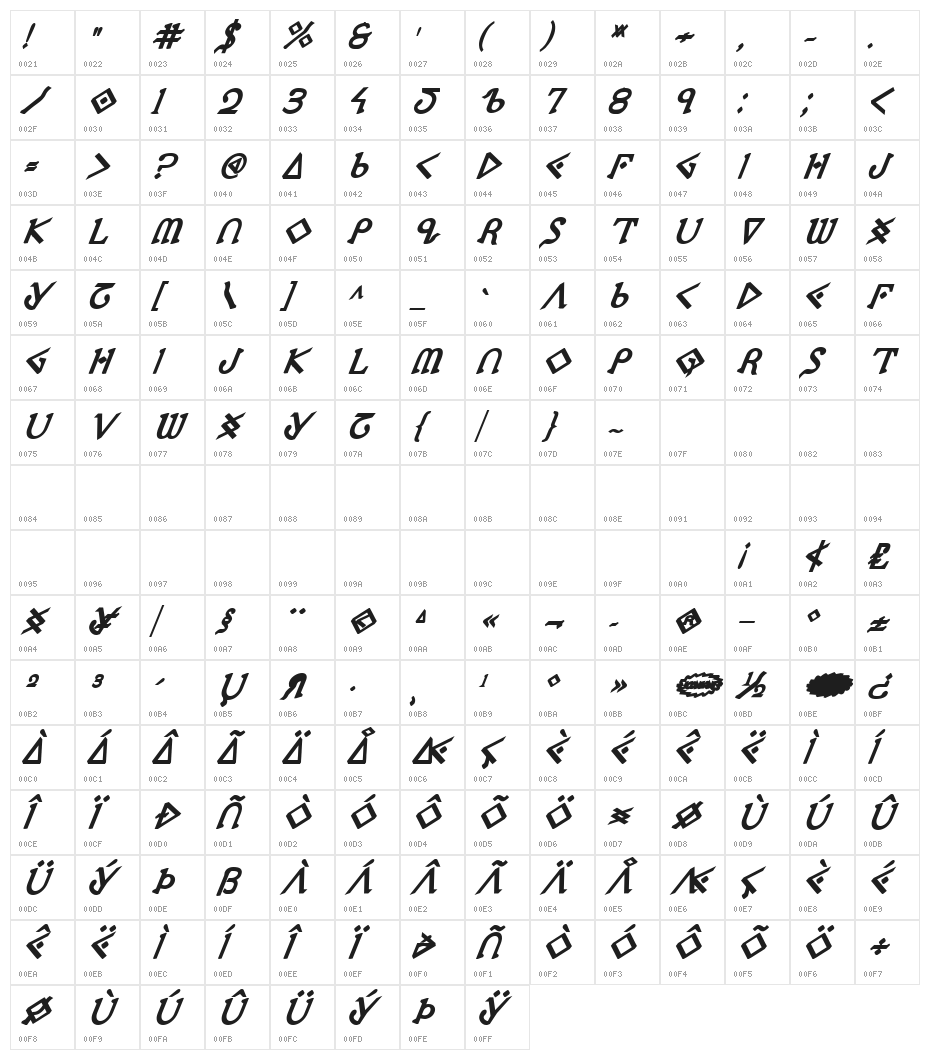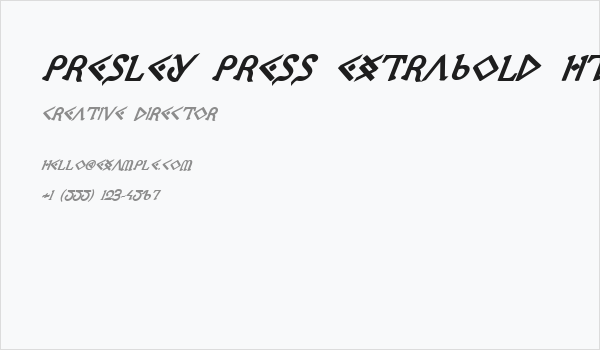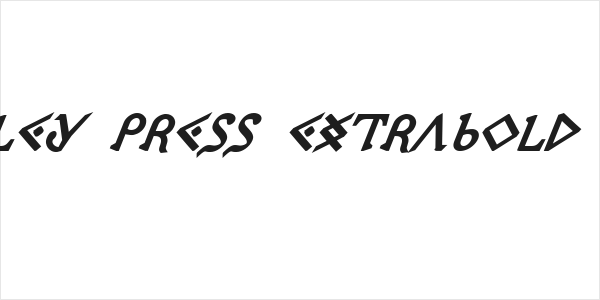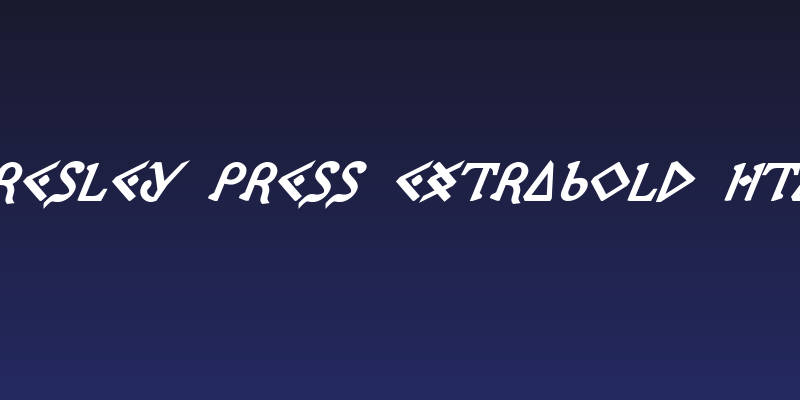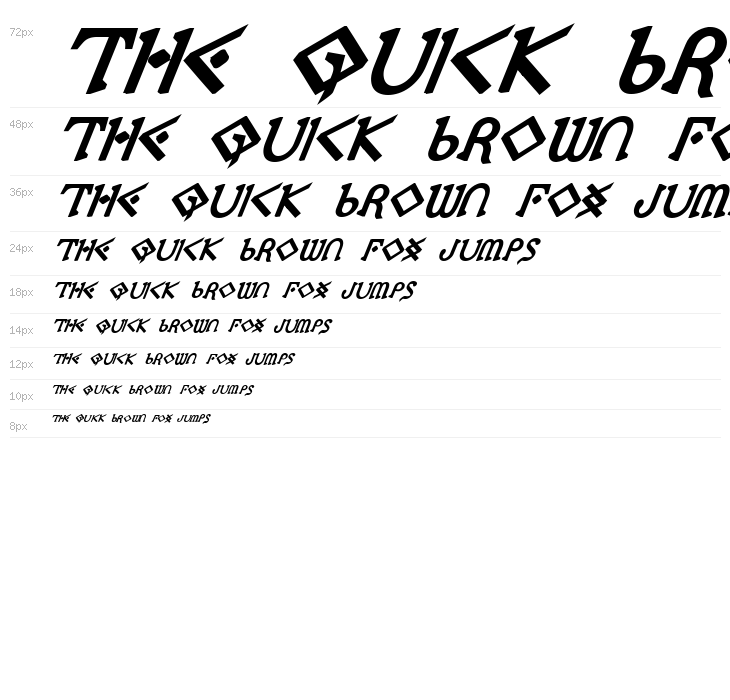
Presley Press ExtraBold Ital Font
Presley Press ExtraBold Ital Description
This font features a bold and italicized style with a distinctively angular and geometric design. The characters are crafted with sharp edges and a dynamic slant, giving them a sense of movement and energy. The uppercase and lowercase letters maintain a consistent style, with unique flourishes that add a decorative touch. The numerals are equally bold, with a strong presence that matches the overall aesthetic. Special characters are creatively designed, maintaining the font's cohesive look. This font's striking appearance makes it ideal for eye-catching designs.
| Proposed Projects | Ideal for posters, logos, branding, and any project requiring a bold, attention-grabbing typeface. |